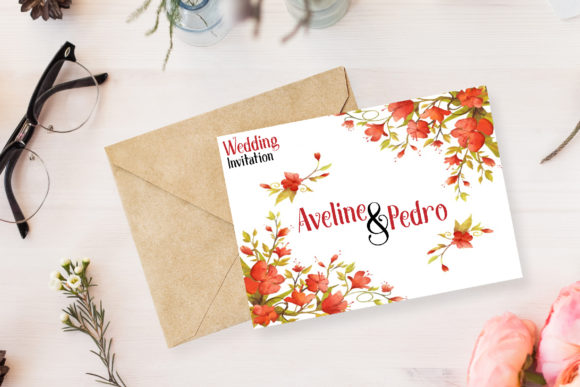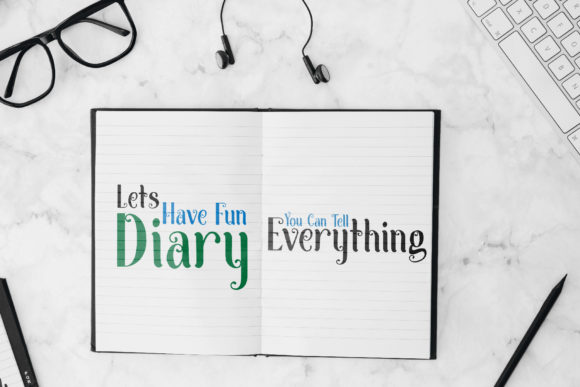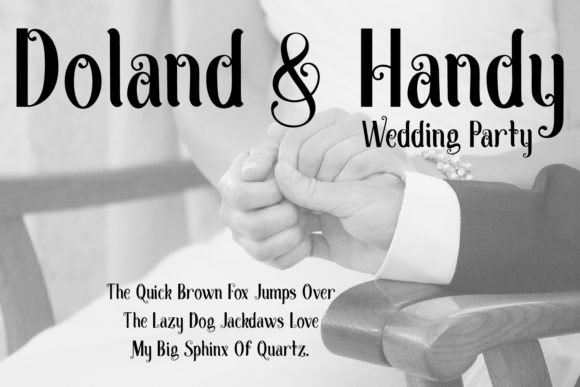
Bendoyo Font: Elevate Your Designs with a Stylish and Versatile Typeface
In the world of typography, a font can make or break a design. It’s the foundation upon which your creative vision is built, and it can elevate your project from ordinary to extraordinary. If you’re a designer, crafter, or simply someone who appreciates the art of typography, you’re in luck. Introducing Bendoyo, a stylish font that’s poised to become your new favorite. In this article, we’ll explore the ins and outs of Bendoyo, and why it’s the perfect addition to your design toolkit.
A Font for All Occasions
Bendoyo is a font that’s designed to be versatile. Whether you’re working on a formal project, like a corporate brand identity, or a non-formal one, like a personal blog or social media graphics, Bendoyo fits the bill. Its unique blend of style and approachability makes it an excellent choice for a wide range of applications. From business cards to posters, and from digital screens to print materials, Bendoyo is the perfect companion for any design project.
Handcrafted with Love
What sets Bendoyo apart from other fonts is its careful handcrafting. Each letterform has been meticulously designed to ensure that it looks wonderful in any context. The result is a font that’s not only stylish but also down-to-earth and readable. Bendoyo’s creator has poured their heart and soul into crafting a font that’s both beautiful and functional. The attention to detail is evident in every curve, line, and serif, making Bendoyo a true standout in the world of typography.
Readability and Versatility
Two of the key benefits of using Bendoyo are its readability and versatility. The font’s carefully designed letterforms make it easy to read, even at small sizes. This makes it perfect for body text, captions, and other applications where legibility is crucial. At the same time, Bendoyo’s unique style and flair make it an excellent choice for headlines, titles, and other display text. Whether you’re working on a digital project or a print one, Bendoyo adapts seamlessly to any context.
What Makes Bendoyo Special?
So, what makes Bendoyo special? Here are just a few things that set it apart:
- Unique style: Bendoyo has a distinctive style that’s both stylish and approachable.
- Versatility: It can be used in both formal and non-formal contexts, making it an excellent addition to any design toolkit.
- Readability: Bendoyo’s carefully designed letterforms make it easy to read, even at small sizes.
- Handcrafted: Each letterform has been meticulously designed to ensure that it looks wonderful in any context.
Using Bendoyo in Your Designs
So, how can you use Bendoyo in your designs? The possibilities are endless! Here are a few ideas to get you started:
- Branding: Use Bendoyo to create a unique and memorable brand identity.
- Print materials: Bendoyo is perfect for business cards, brochures, posters, and other print materials.
- Digital screens: Use Bendoyo to create stunning digital graphics, social media posts, and website headers.
- Crafting: Bendoyo is also perfect for crafters who want to add a personal touch to their projects.
In conclusion, Bendoyo is a stylish font that’s poised to become your new favorite. Its unique blend of style, approachability, and versatility makes it an excellent choice for a wide range of design projects. Whether you’re a designer, crafter, or simply someone who appreciates the art of typography, Bendoyo is definitely worth checking out. So why not give it a try and see how it can elevate your designs?